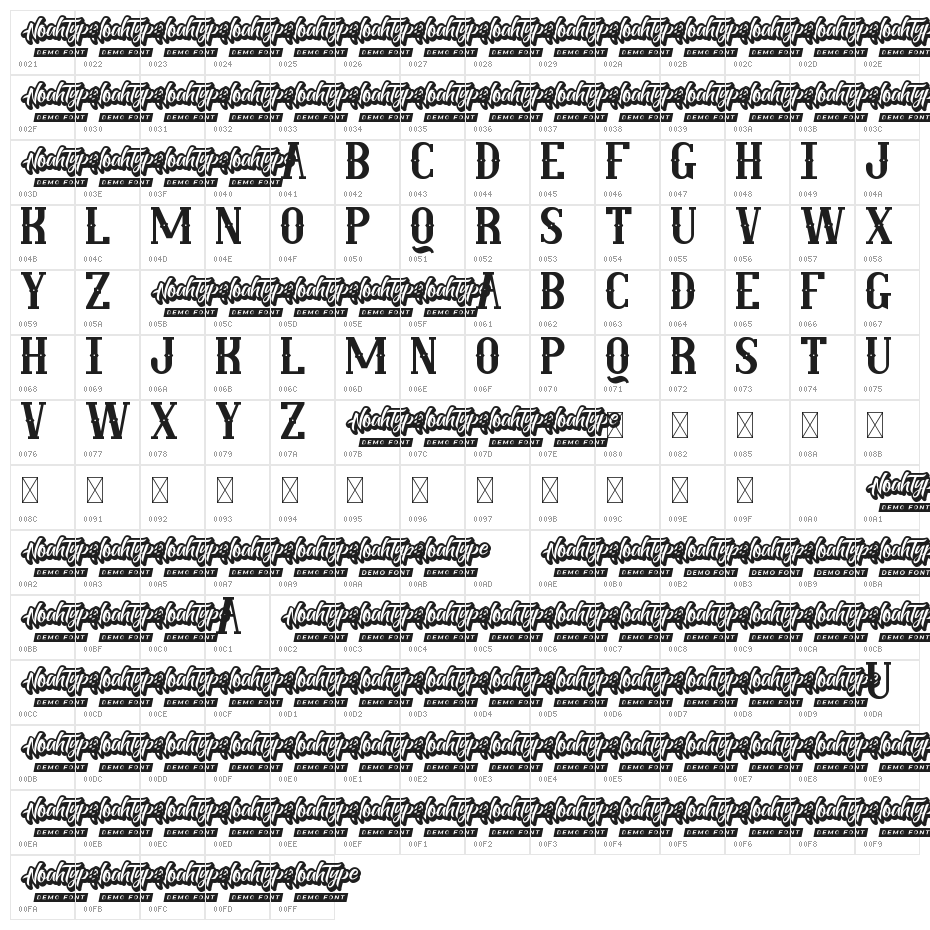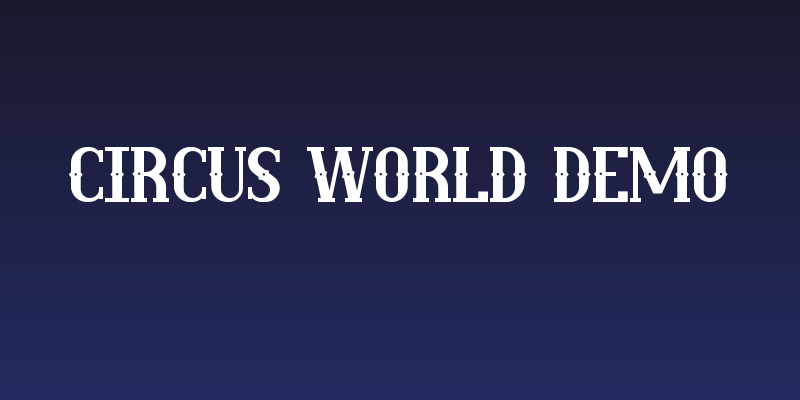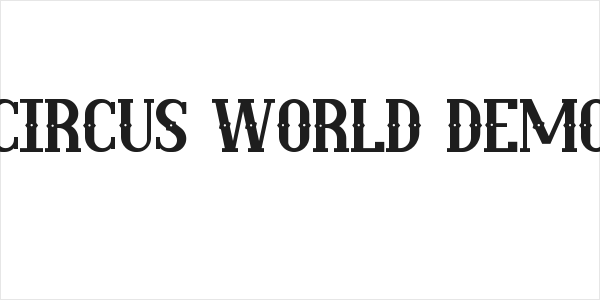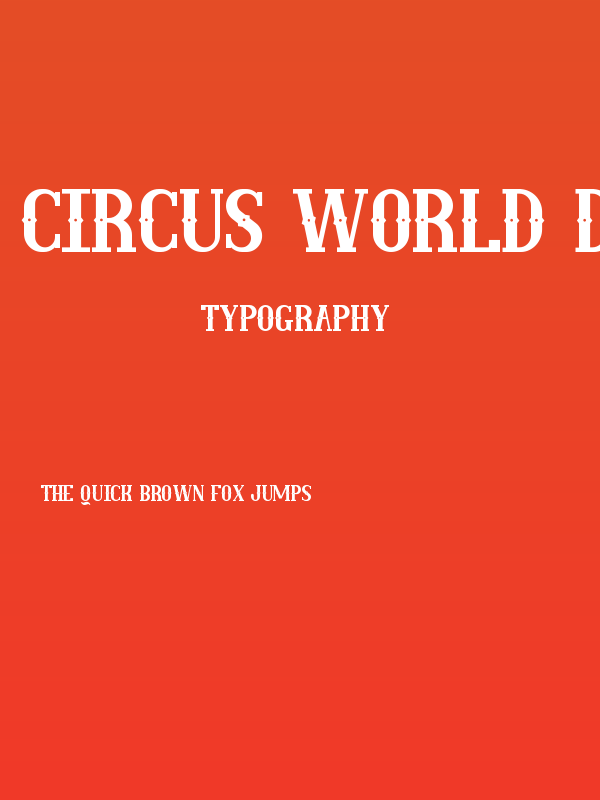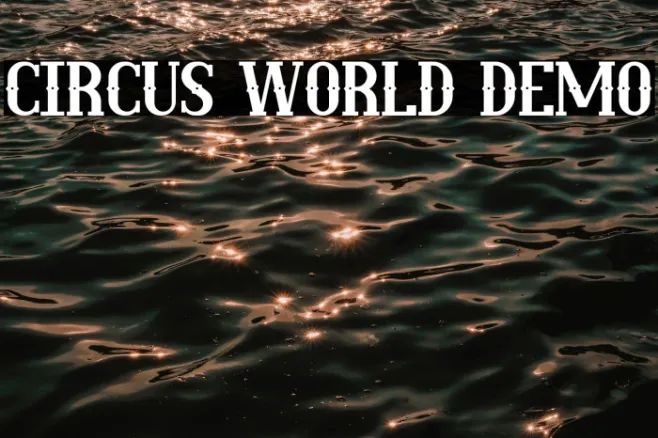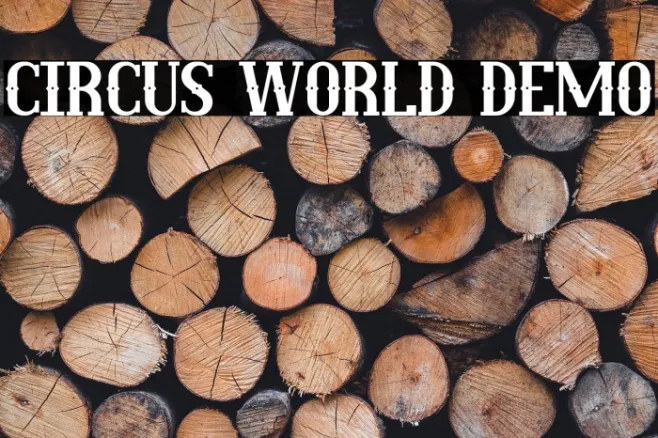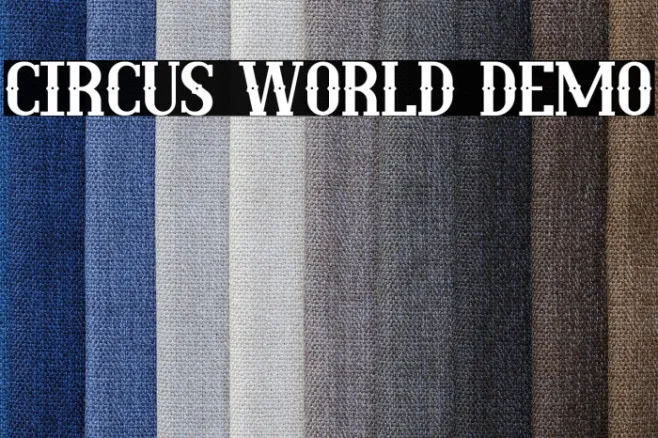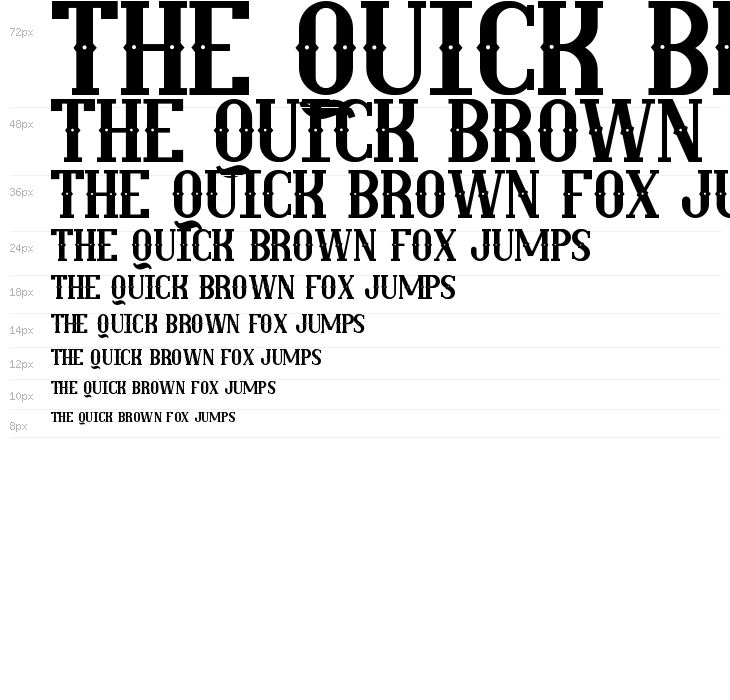
Circus World Demo Font
This font features a bold and decorative style reminiscent of vintage circus posters. The characters are designed with a strong presence, incorporating unique serifs and ornamental elements that evoke a sense of nostalgia and whimsy. The uppercase letters are particularly striking, with a consistent height and width that ensures readability while maintaining an artistic flair. The font's design includes subtle curves and sharp angles, adding to its dynamic appearance. It is ideal for projects that require a touch of retro charm and bold visual impact.
| Proposed Projects | Ideal for use in posters, event flyers, branding for entertainment venues, and any project seeking a vintage or whimsical aesthetic. |